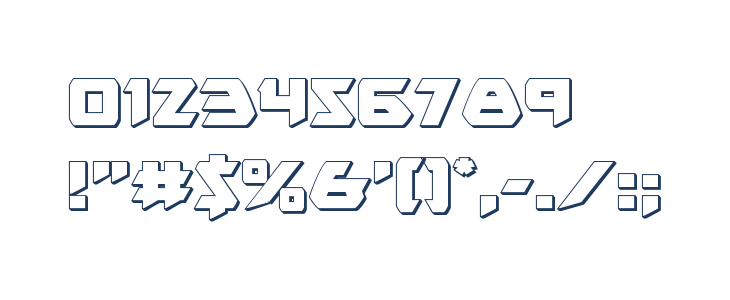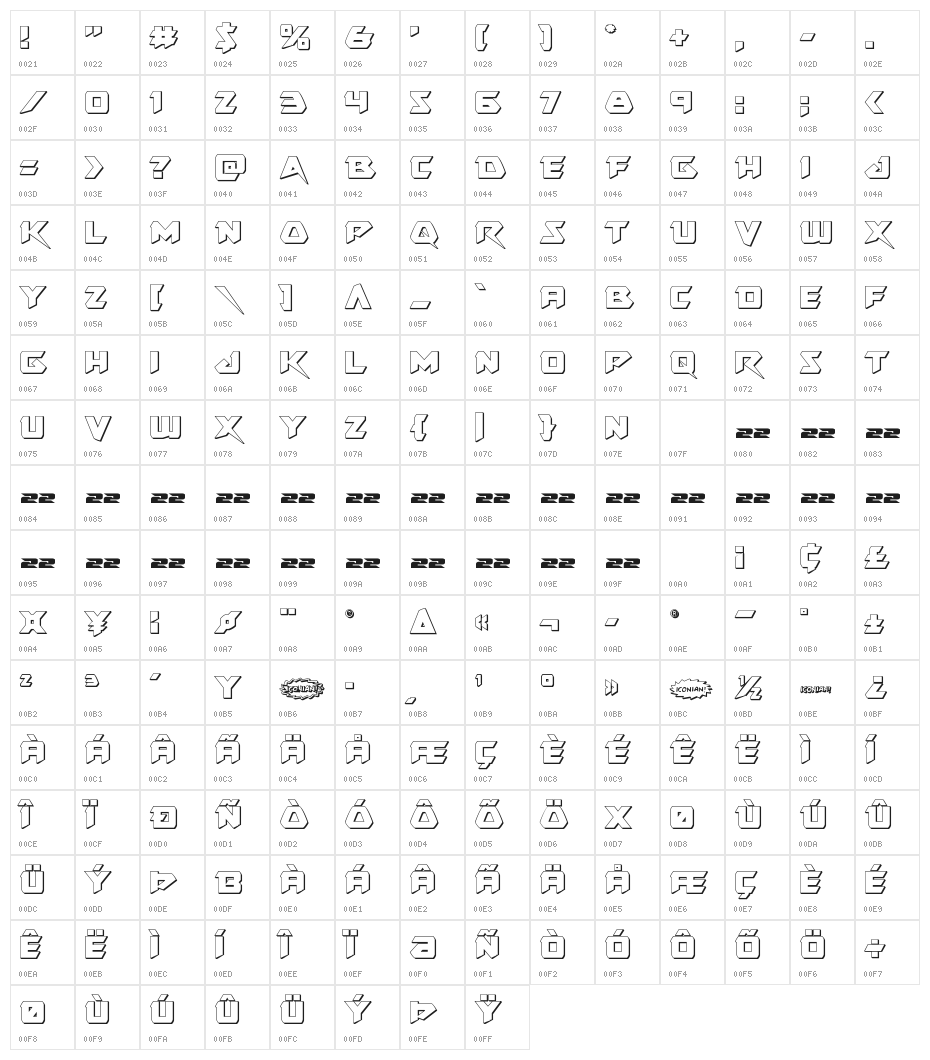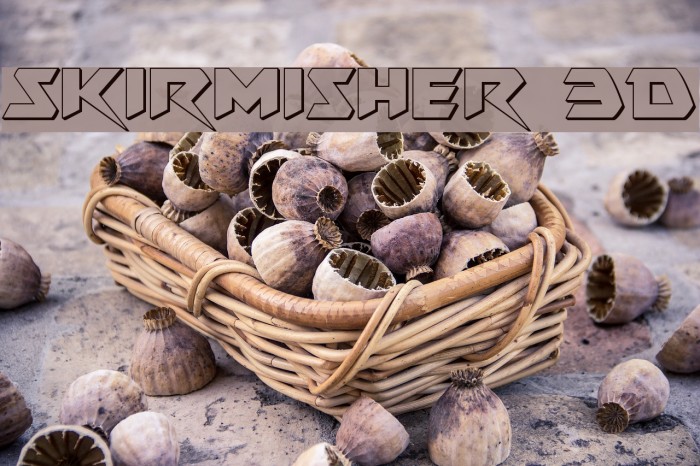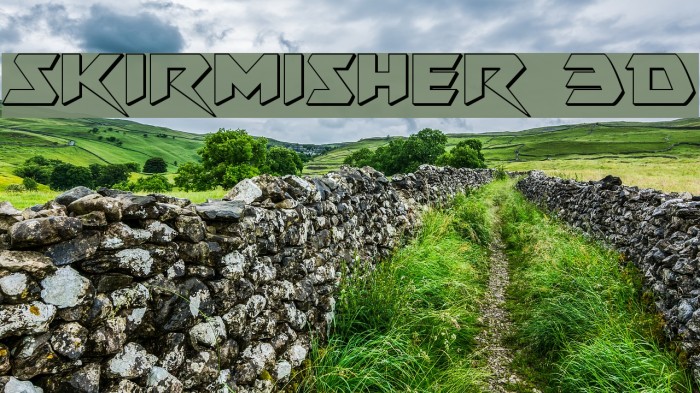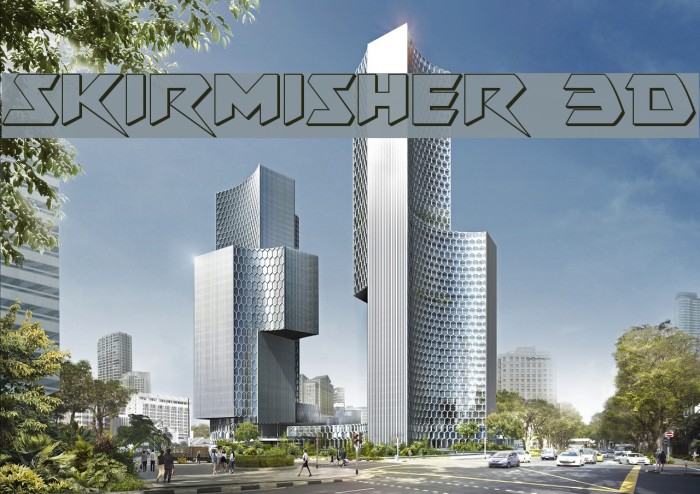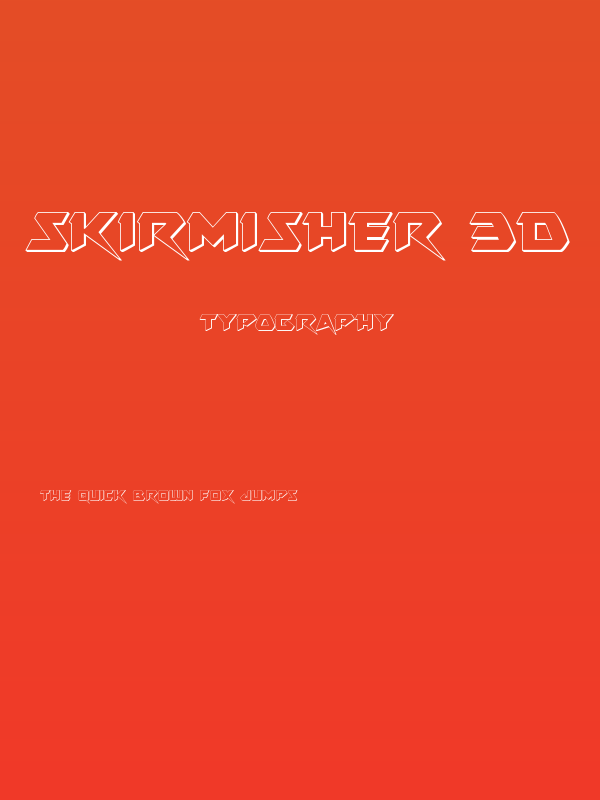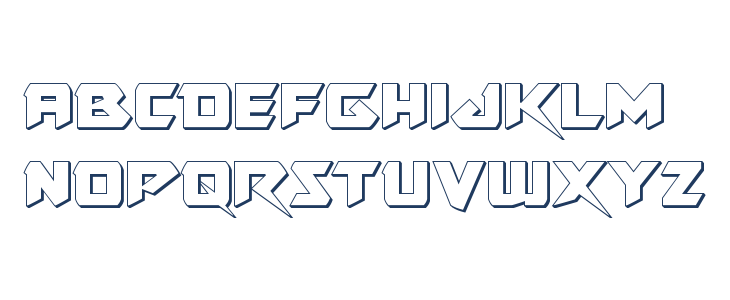
Skirmisher 3D Font
Skirmisher 3D Description
This font features a bold, angular design with a 3D effect, giving it a futuristic and dynamic appearance. The characters are outlined, creating a sense of depth and dimension. The sharp, geometric shapes convey a sense of strength and modernity, making it ideal for projects that require a bold statement. The uppercase and lowercase letters maintain a consistent style, with each character exhibiting a unique, edgy flair. Numbers and special characters are designed to match the overall aesthetic, ensuring a cohesive look across all text elements.
Proposed ProjectsIdeal for video game titles, sci-fi movie posters, technology branding, and sports team logos.